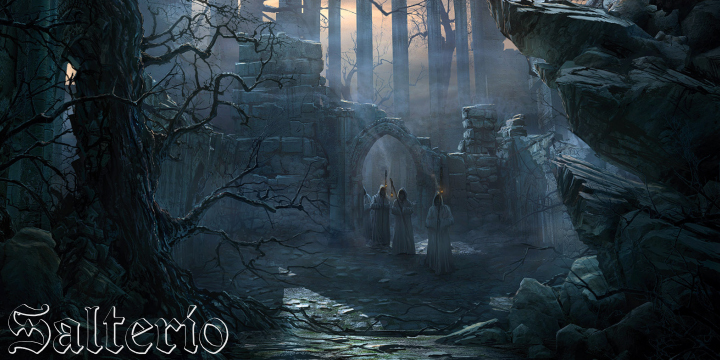
Salterio Shadow by Paulo W of Intellecta Design is a free medieval blackletter font with broad, dark forms and sharp Gothic detailing. White inline cuts break through the dense strokes, and hooked points give the letters a carved, irregular edge.
Its split interiors echo engraved ornament and woodcut-style illustration, making the font a convincing match for historical posters, folk music packaging, theatrical event graphics, and heritage branding. In publishing, it can turn a book cover or chapter opener into part of the artwork, particularly for folklore collections, medieval drama, dark historical fiction, or richly illustrated editions.